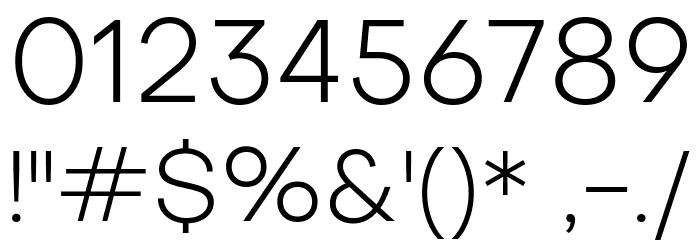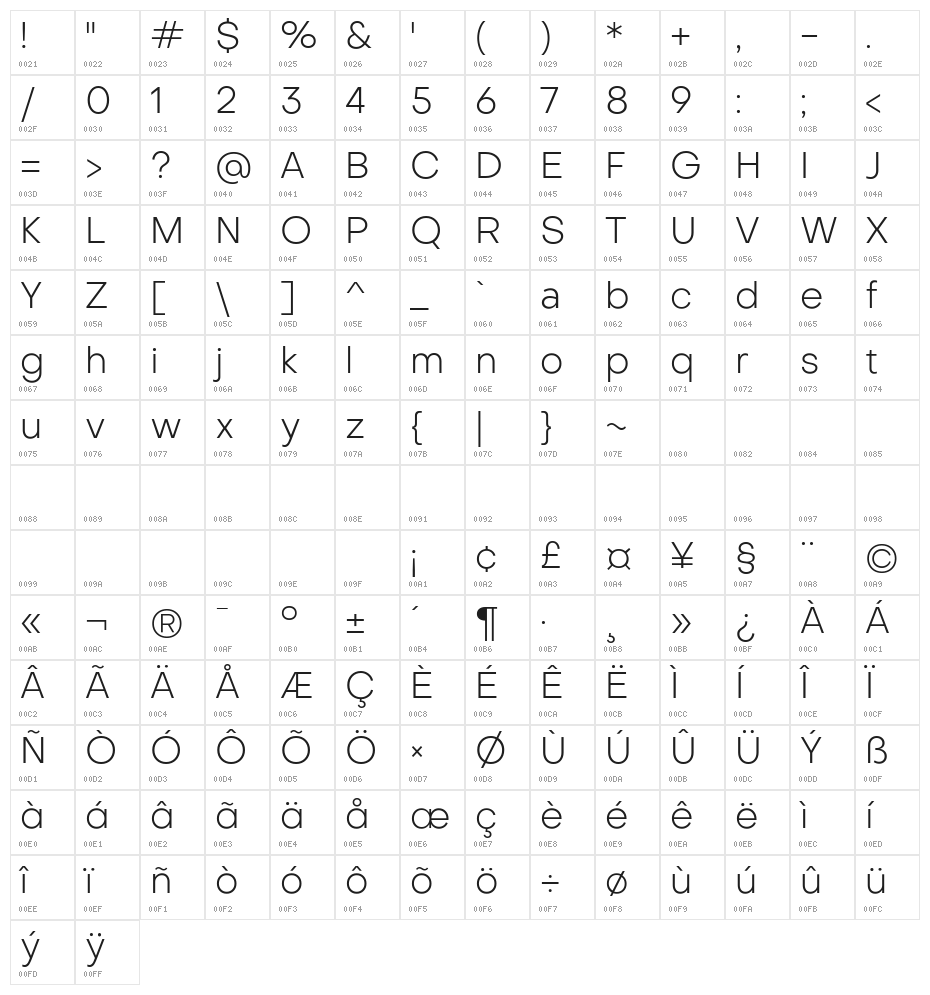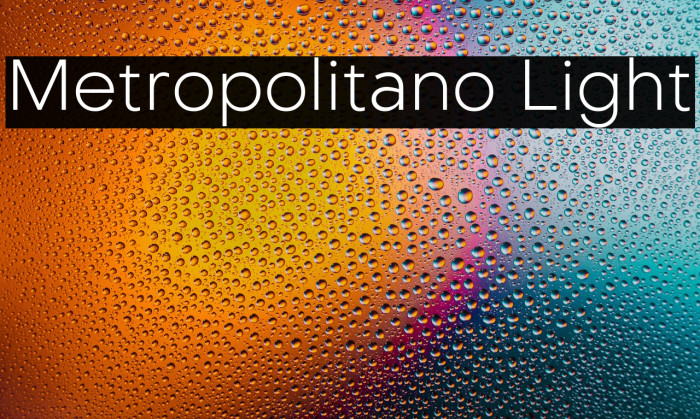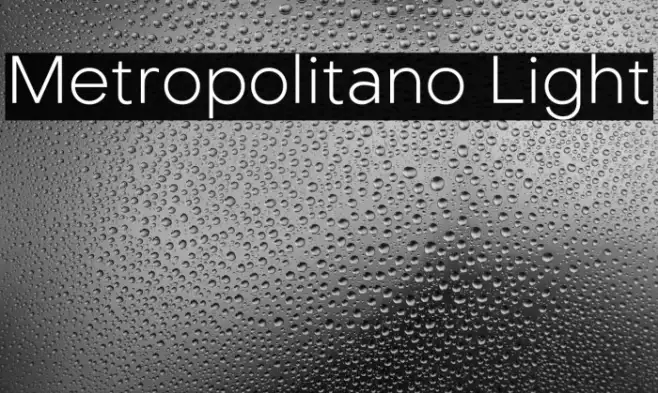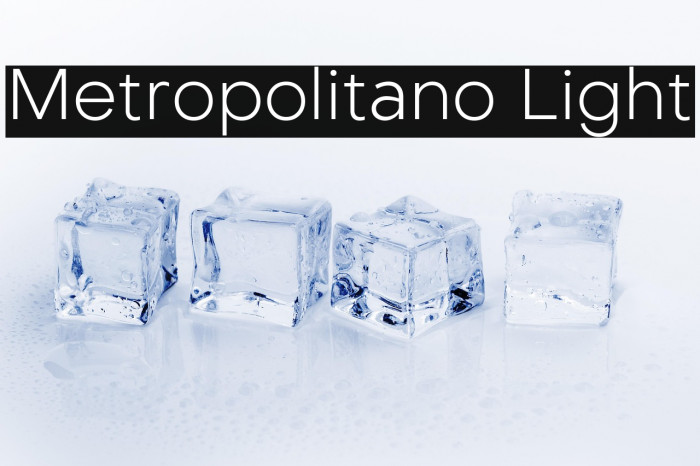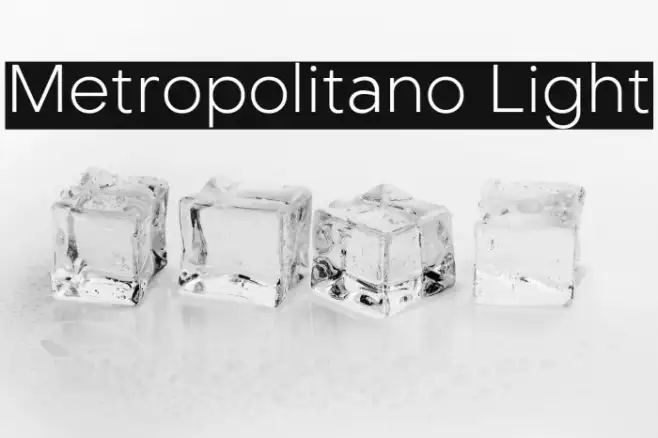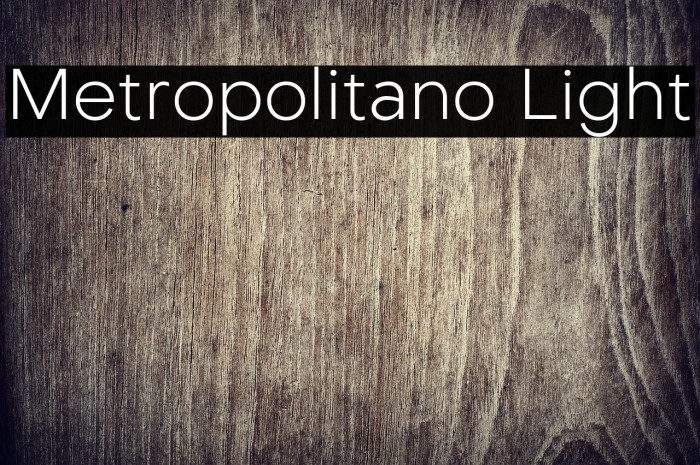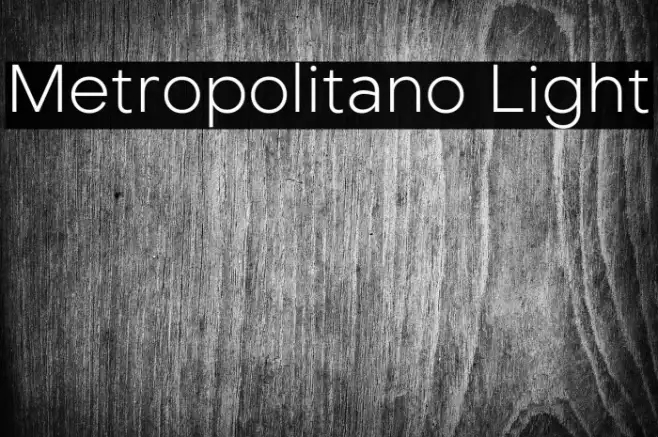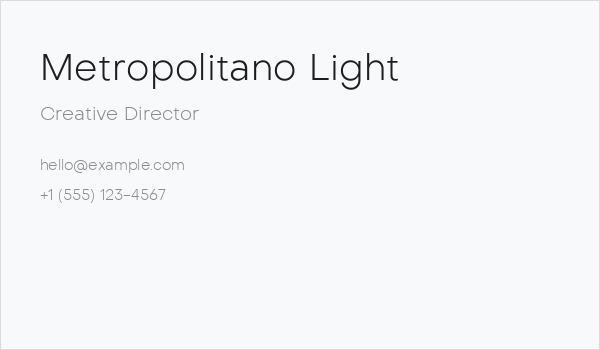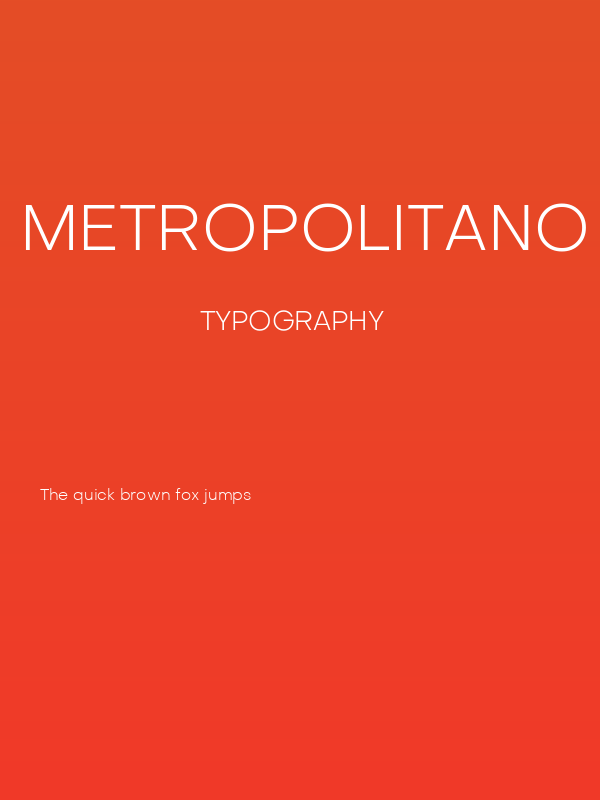
Metropolitano Light Font
Metropolitano Light Description
This font features a clean and modern sans-serif design with a light weight, making it ideal for minimalist and contemporary projects. The characters are evenly spaced with a normal width, providing excellent readability. The strokes are consistent with low contrast, giving it a sleek and uniform appearance. Its simplicity and elegance make it versatile for various applications, from digital interfaces to print media.
| Proposed Projects | Ideal for web design, mobile apps, corporate branding, and editorial layouts. |